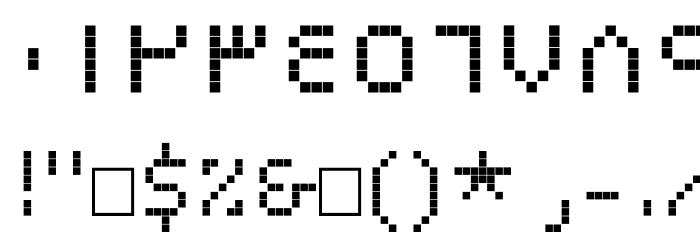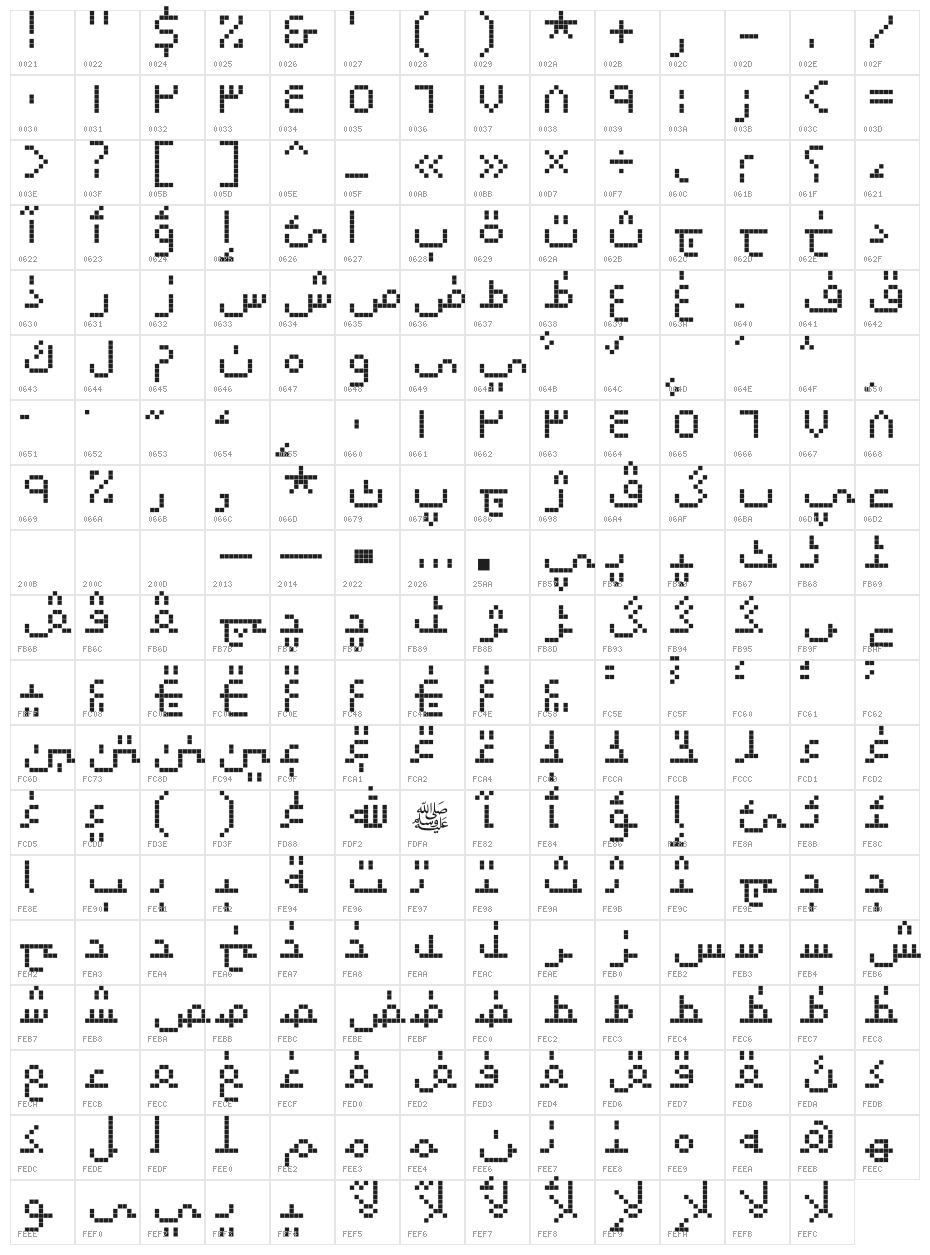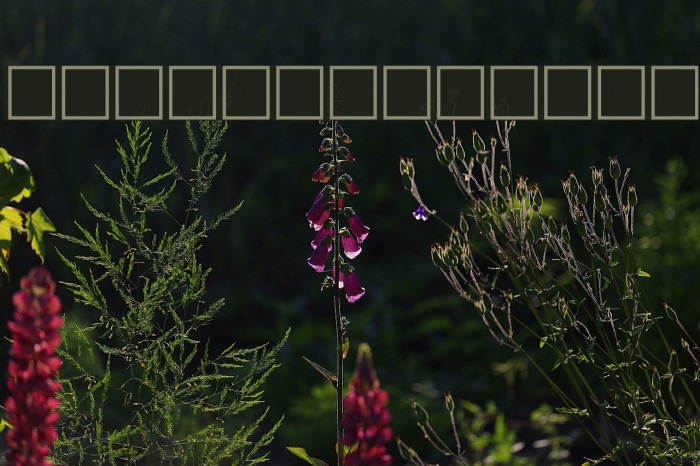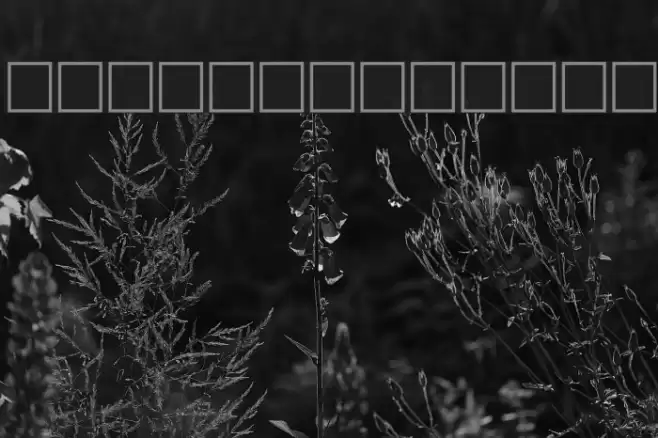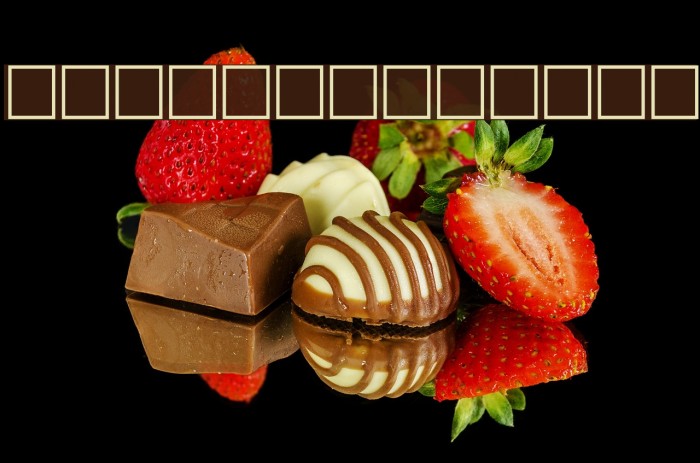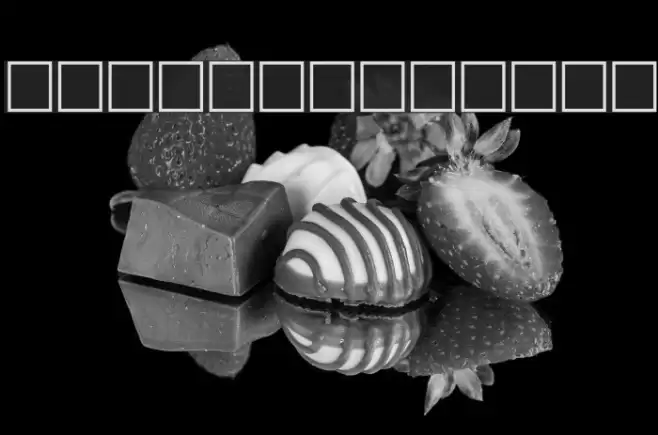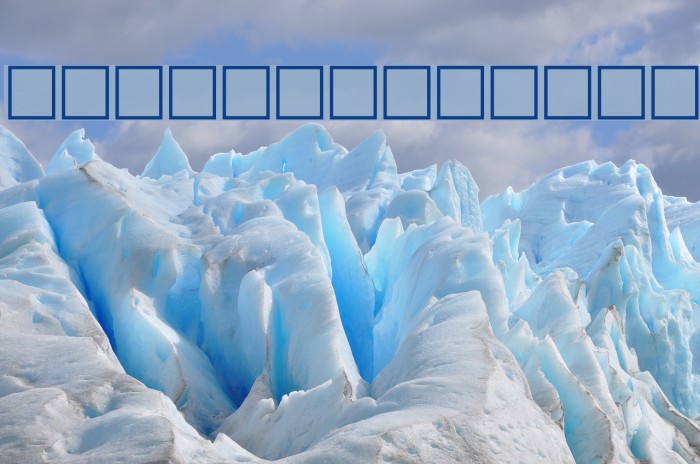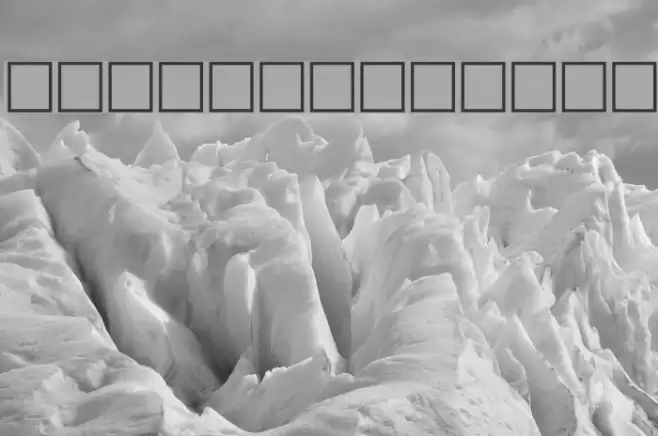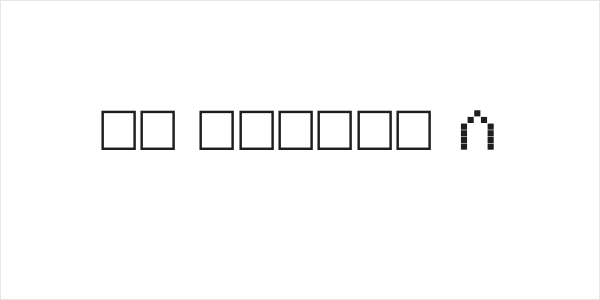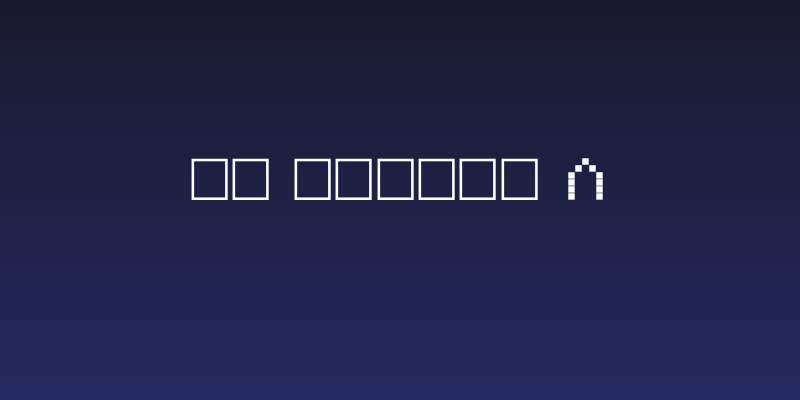
Al Abdali 8 Font
Al Abdali 8 Description
This font features a pixelated, blocky design reminiscent of early digital displays or retro video games. Each character is composed of small square blocks, creating a distinct, grid-like appearance. The uniformity in the design gives it a structured and mechanical feel, while the pixelated style adds a nostalgic touch. The characters are evenly spaced, maintaining a consistent rhythm across the text. This font is particularly effective for projects that aim to evoke a sense of nostalgia or to mimic the aesthetic of old-school digital interfaces. Its unique style makes it stand out, making it suitable for creative and playful applications.
| Use Case | Logos, Headlines, Digital Art |
| Proposed Projects | Ideal for retro-themed video games, digital art projects, and nostalgic branding. |